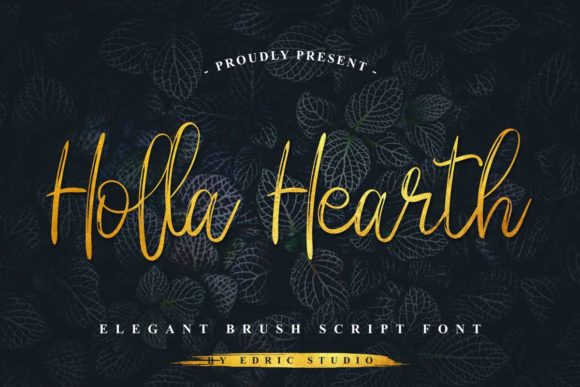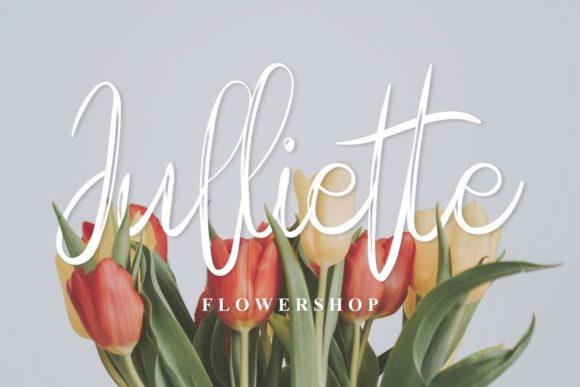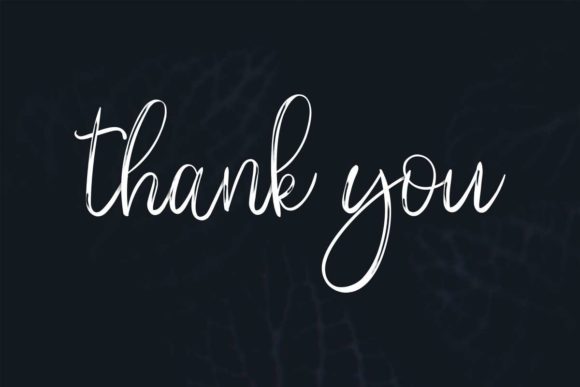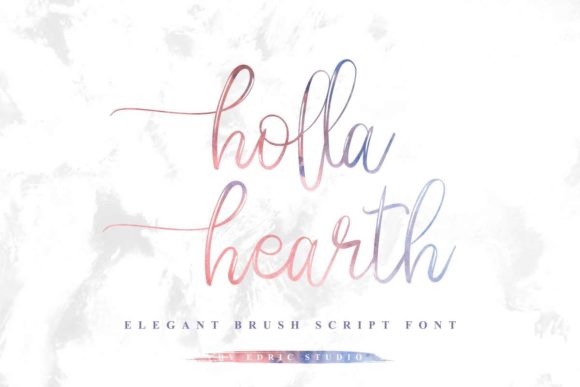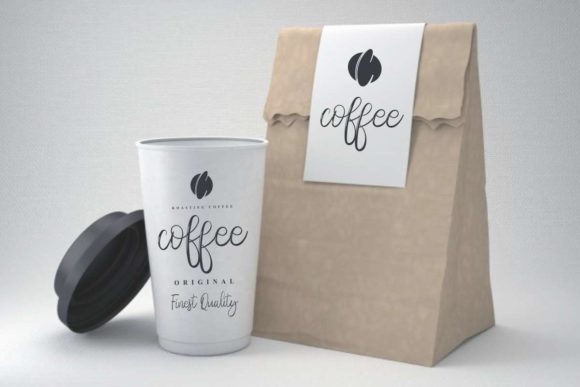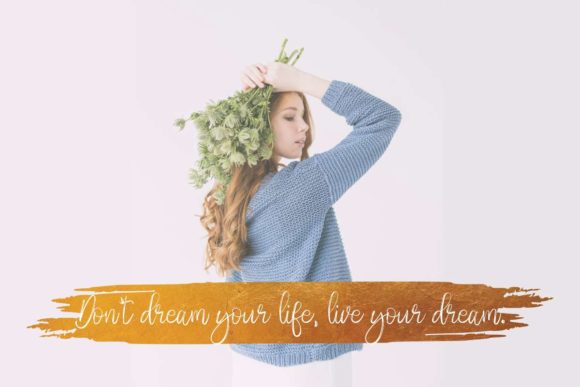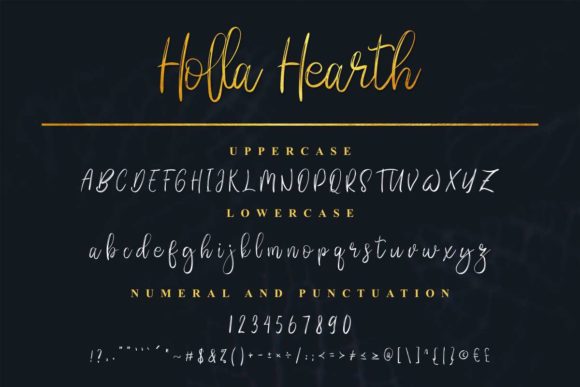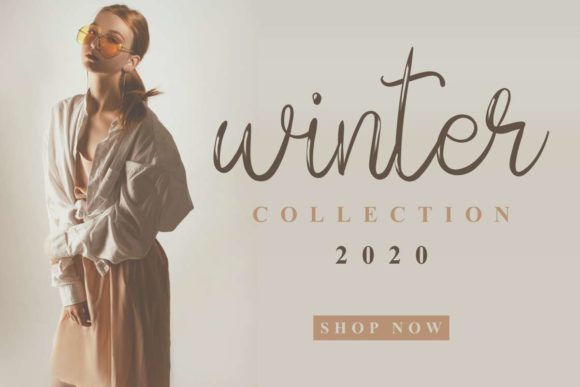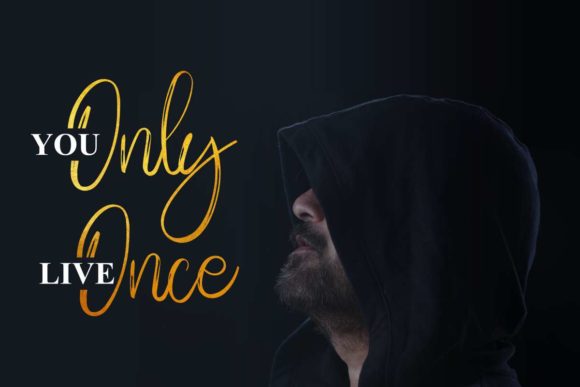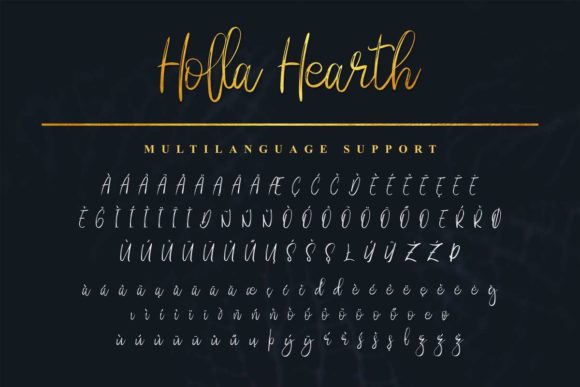
HomeScript FontsHolla Hearth Font Script Fonts Holla Hearth Font FacebookXPinterestWhatsApp Holla Hearth Font Poster 2 Holla Hearth Font Poster 3 Holla Hearth Font Poster 4 Holla Hearth Font Poster 5 Holla Hearth Font Poster 6 Holla Hearth Font Poster 7 Holla Hearth Font Poster 8 Holla Hearth Font Poster 9 Holla Hearth Font Poster 10 Holla Hearth Font Poster 11 About Holla Hearth Font Holla Hearth feels elegant and well-rounded, with a unique aesthetic. Get inspired by its authentic charm. DOWNLOAD ON CREATIVE FABRICAThis font is sold and delivered by Creative Fabrica. Font Canyon may earn a commission if you buy through this link. People also explored Semayane Font Playkidos Font Quaderno Slanted Carrier Font Cilia Font Femme Fatale Font Cow Black Font Athen Font Shecarea Font 302 0 TagsHolla Hearth Font Previous articleGreat Devotion FontNext articleMy Illutions Font LEAVE A REPLY Cancel reply Comment: Please enter your comment! Name:* Please enter your name here Email:* You have entered an incorrect email address! Please enter your email address here Website: Save my name, email, and website in this browser for the next time I comment. Personal Use Free Love Memories Personal Use Free Read more about this font Deftone Personal Use Free Read more about this font Baby Magnolia Personal Use Free Read more about this font Penelope Brush Script Font Personal Use Free Read more about this font BLOG Using Fonts in Digital Marketing: Tips to Strengthen Your Brand Identity In the realm of digital marketing, every visual element plays a crucial role in shaping a brand's identity, and fonts are no exception. The... Transform Your Website: Elevate Your Typography with 7 Best Web Font Generators The 10 Best Handwriting Fonts to Add Personality to Your Designs How to Install and Use Fonts on Windows, macOS, and Web Projects